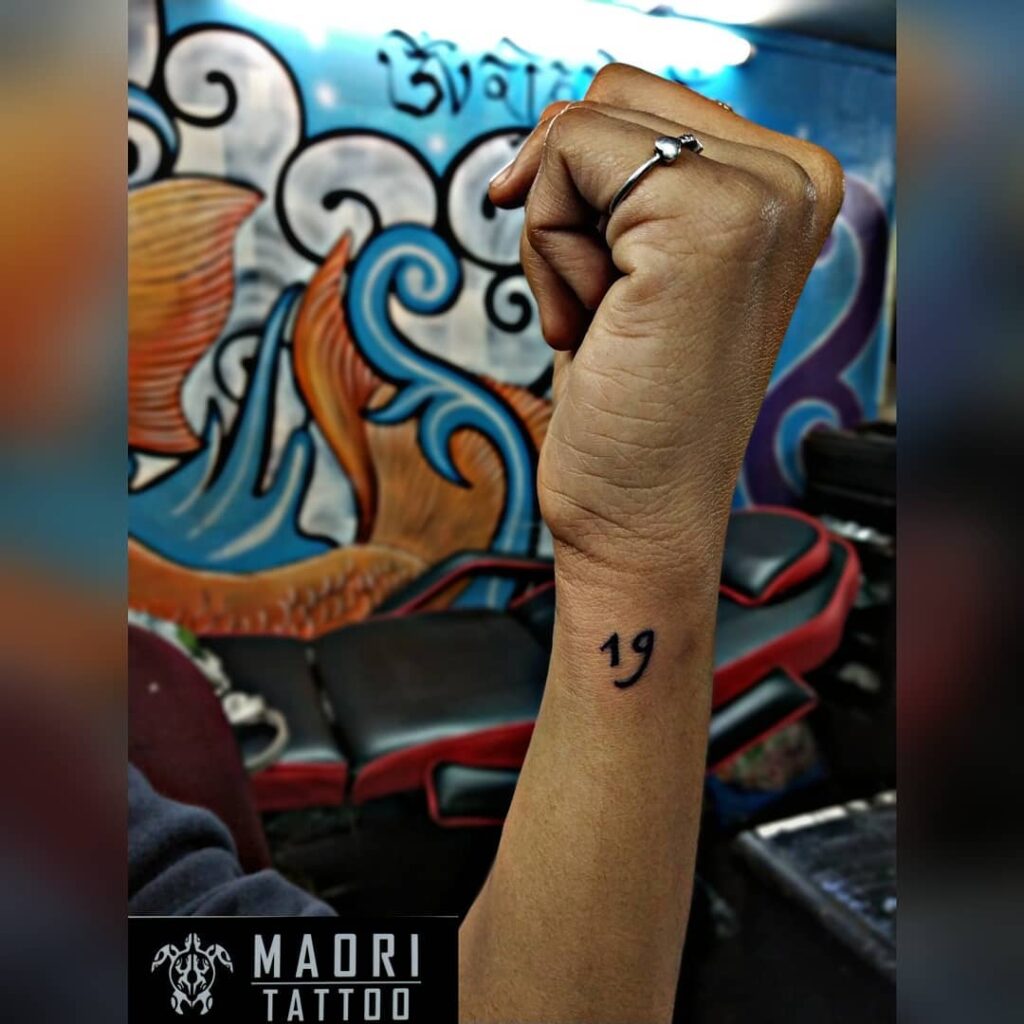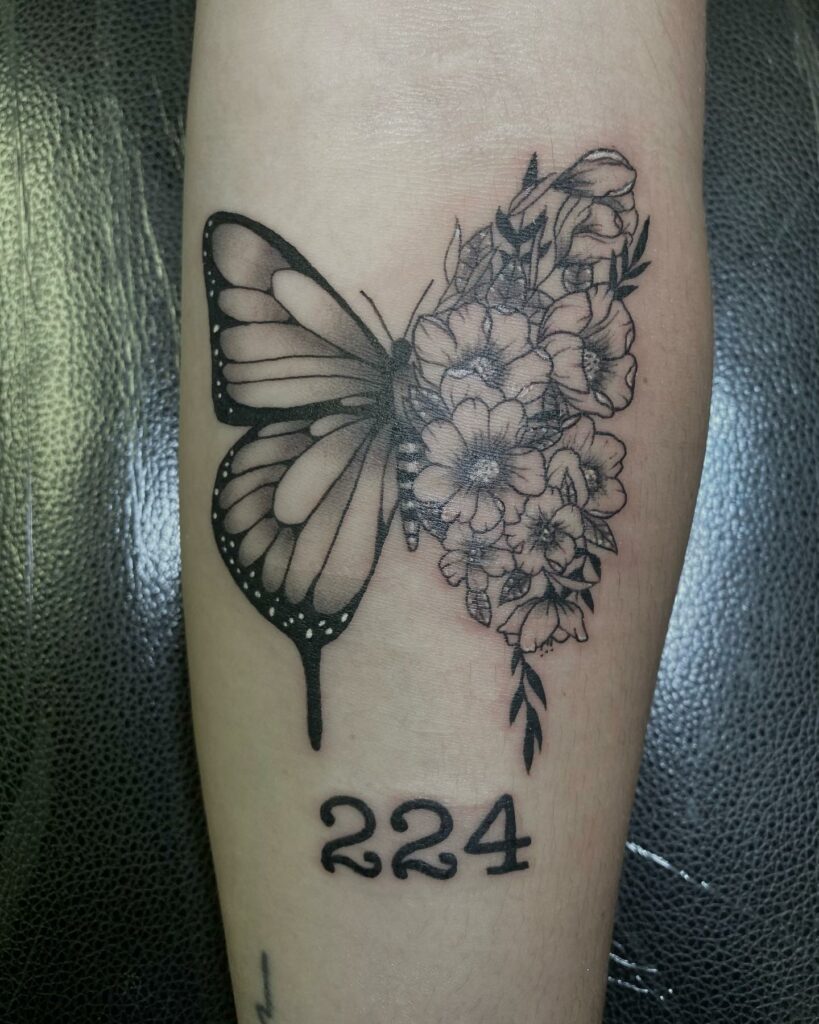
Want a tattoo font that truly stands out? You’ve come to the right place! Font styles possess a unique power, and the perfect choice is crucial. Decorative fonts, from elegant scripts to personal handwriting styles, uniquely express your personality and feelings. When selecting a tattoo font, consider both the design’s meaning and the font’s style. A striking number font can elevate your tattoo and spark interest. Finding the ideal font can be overwhelming with so many choices. But fear not! We’ve curated a list of exceptional and distinctive decorative number fonts to assist you in your search. Explore our selection, pick your favorite, and prepare to make a lasting impression!
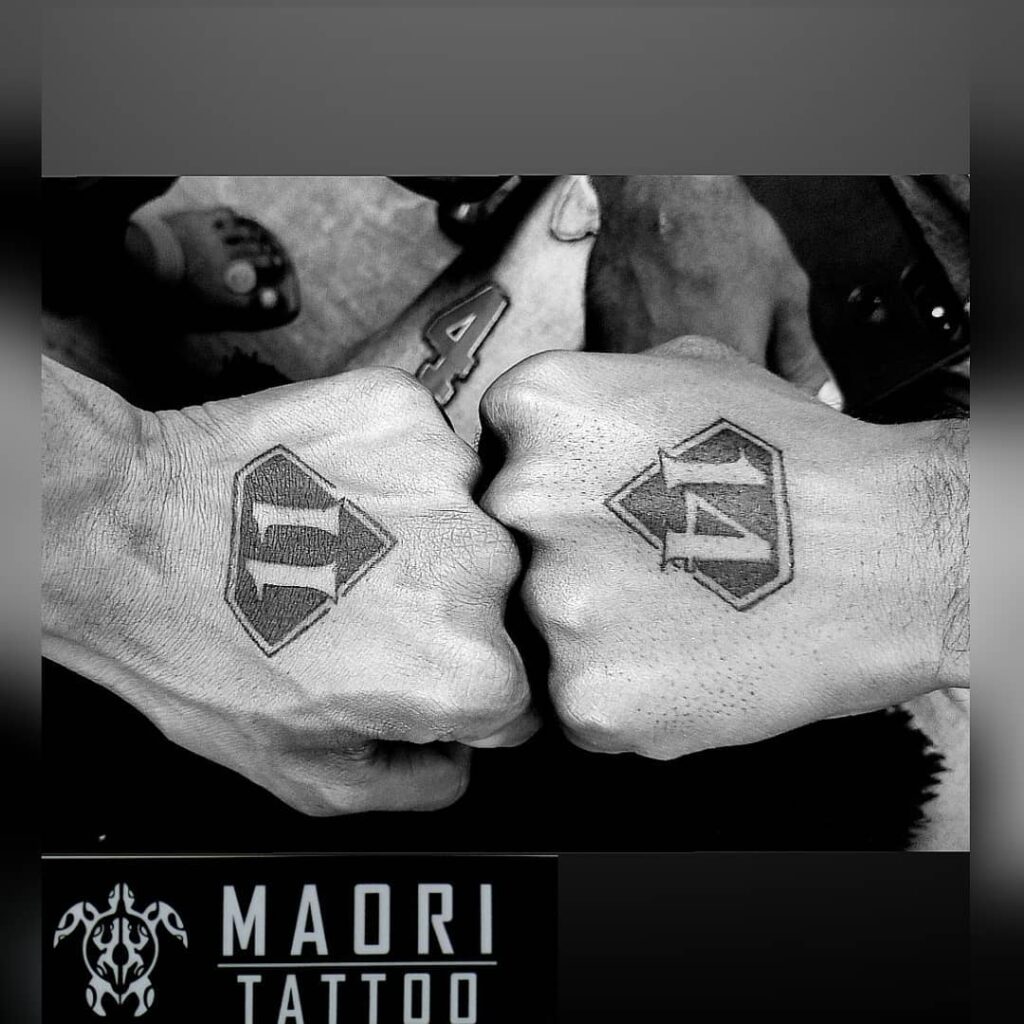
Date Tattoo
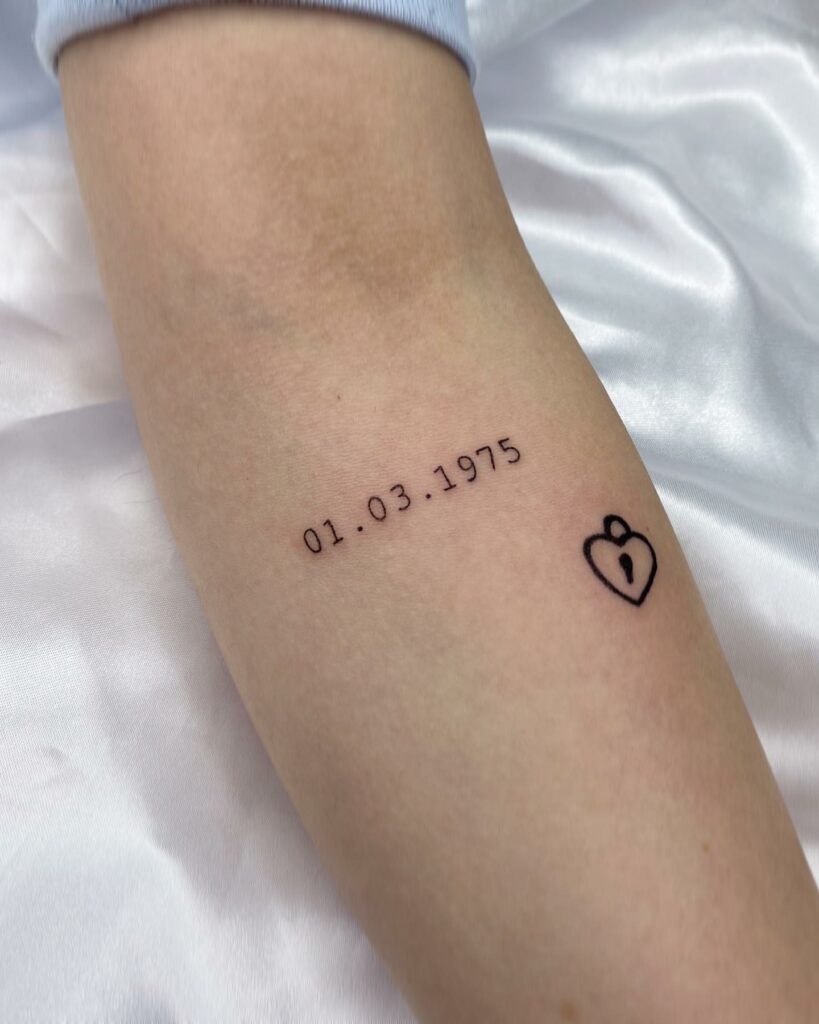
Significant dates resonate deeply within us. A tattoo is a beautiful way to honor these memories. Consider commemorating a partner’s birthday or a loved one’s anniversary with ink. Incorporating these special dates adds profound personal meaning to your tattoo.
For a stunning date tattoo, our artists frequently recommend typewriter fonts. Their clean, straightforward style brings a refined touch, ideal for this tattoo type. We usually use black ink, ensuring the date is clear and prominent. We also advise clients to incorporate custom design features for a truly unique and personal artwork.
In 2025, date tattoos remain a potent symbol for commemorating life’s significant moments and cherished individuals. With careful selection of font and design, they become striking and deeply personal body art. Our skilled tattoo artists are dedicated to assisting you in crafting a unique design that embodies your individual narrative.
Number 5 Tattoo
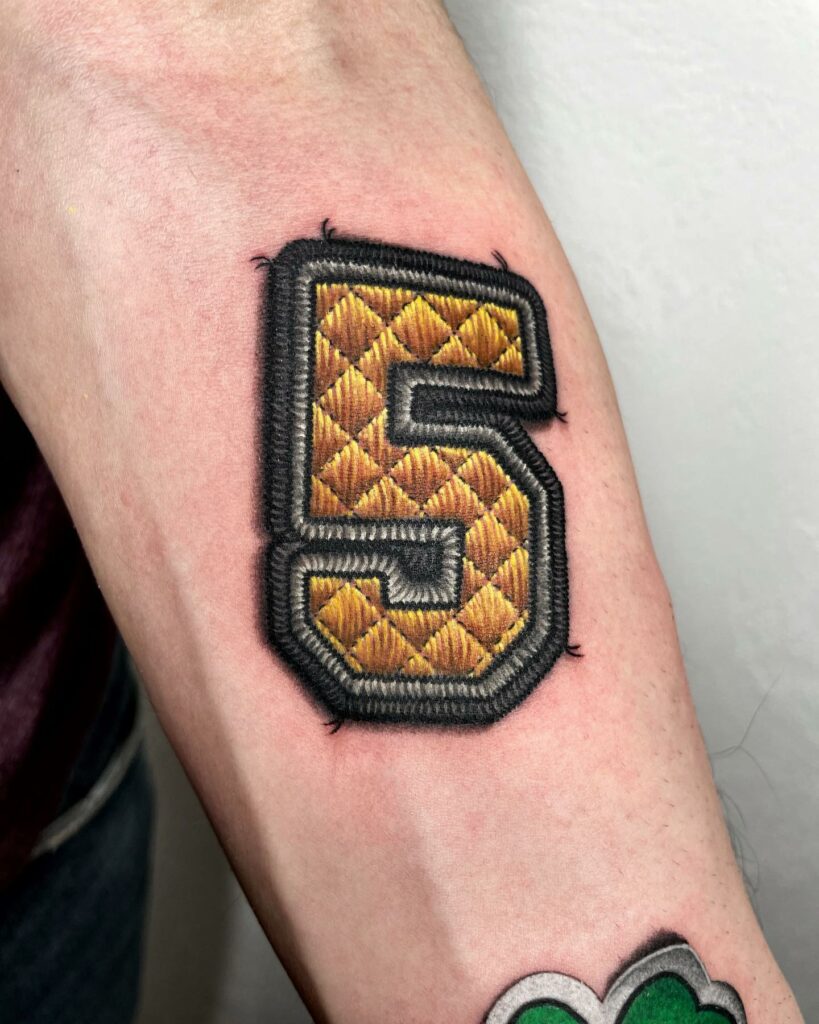
The iconic 5-point star, often called the nautical star, remains a favored design. For generations, sailors have relied on it for navigation, symbolizing the journey back to their loved ones and a sense of direction.
Tattoos are beautiful because of their personal meaning. The number 5 can be uniquely significant. It might represent a special date. It could also symbolize the number of cherished family or friends.
A stunning number 5 tattoo showcases an embroidered design, seemingly stitched directly onto the skin. The skilled tattooist masterfully blends yellow, brown, grey, black, and white inks for a hyper-realistic effect. Loose threads around the tattoo’s edge enhance the illusion, mimicking genuine needlework.
In 2025, the number 5 remains a popular tattoo choice due to its adaptability and rich symbolism. Its meanings are diverse and can be tailored to individual preferences. Remember to select a design that resonates with you on a personal level. Always consult with a skilled and licensed tattoo artist for a safe and positive tattooing experience.
Birth Year Tattoo
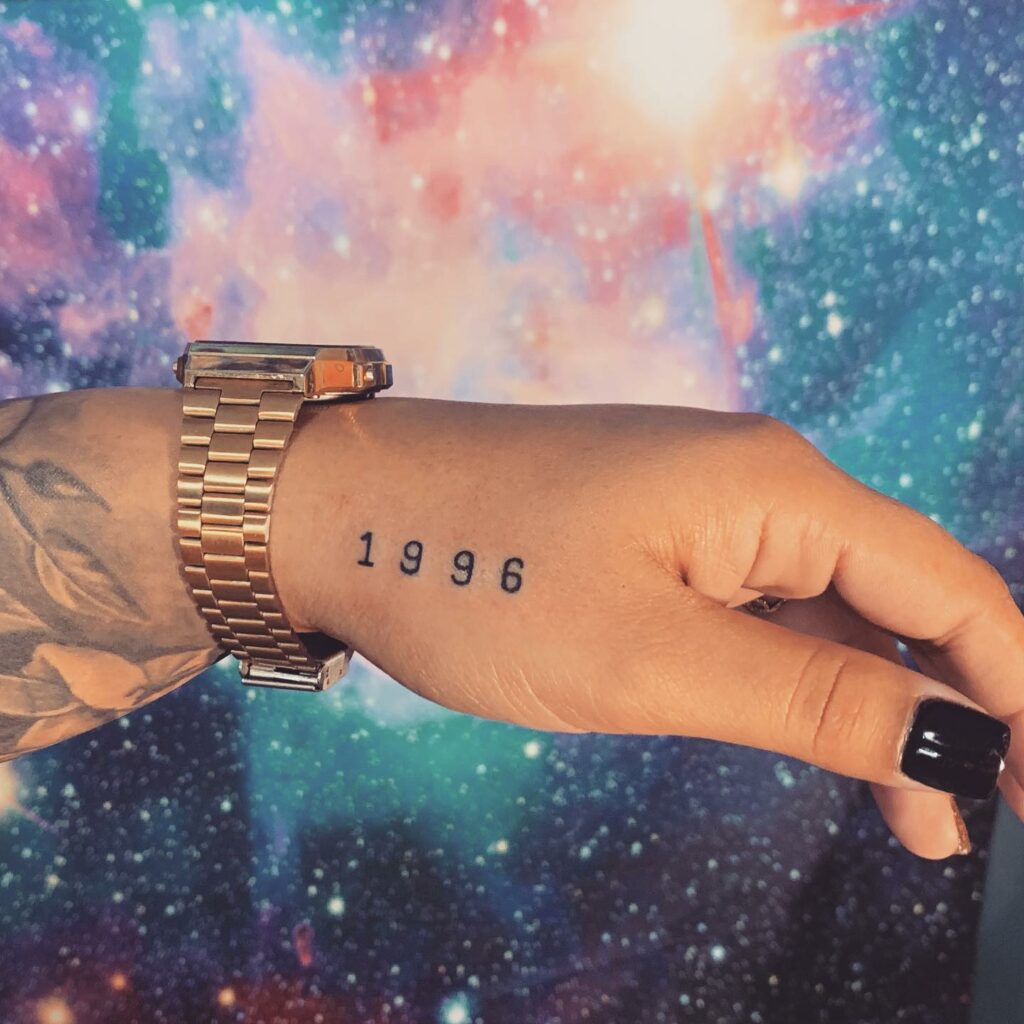
These tattoos aren’t just about your own birth year. They can also symbolize the birth year of a loved one or a significant life event.
Year tattoos remain popular due to their deeply personal narratives. Each year holds unique significance. Inking it creates a lasting reminder of a special, defining moment.
Parents, for instance, frequently get tattoos of their child’s birth year. It’s a heartfelt tribute and celebration of their precious child. Similarly, couples might choose a year tattoo to mark their wedding anniversary. This serves as a permanent symbol of their enduring love.
This tattoo showcases the year rendered in a traditional typewriter font. This font choice provides a sophisticated and enduring aesthetic, maintaining a personalized sentiment. Positioned on the hand, near the thumb, the tattoo is prominently displayed and readily noticeable.
Number 4 Tattoo
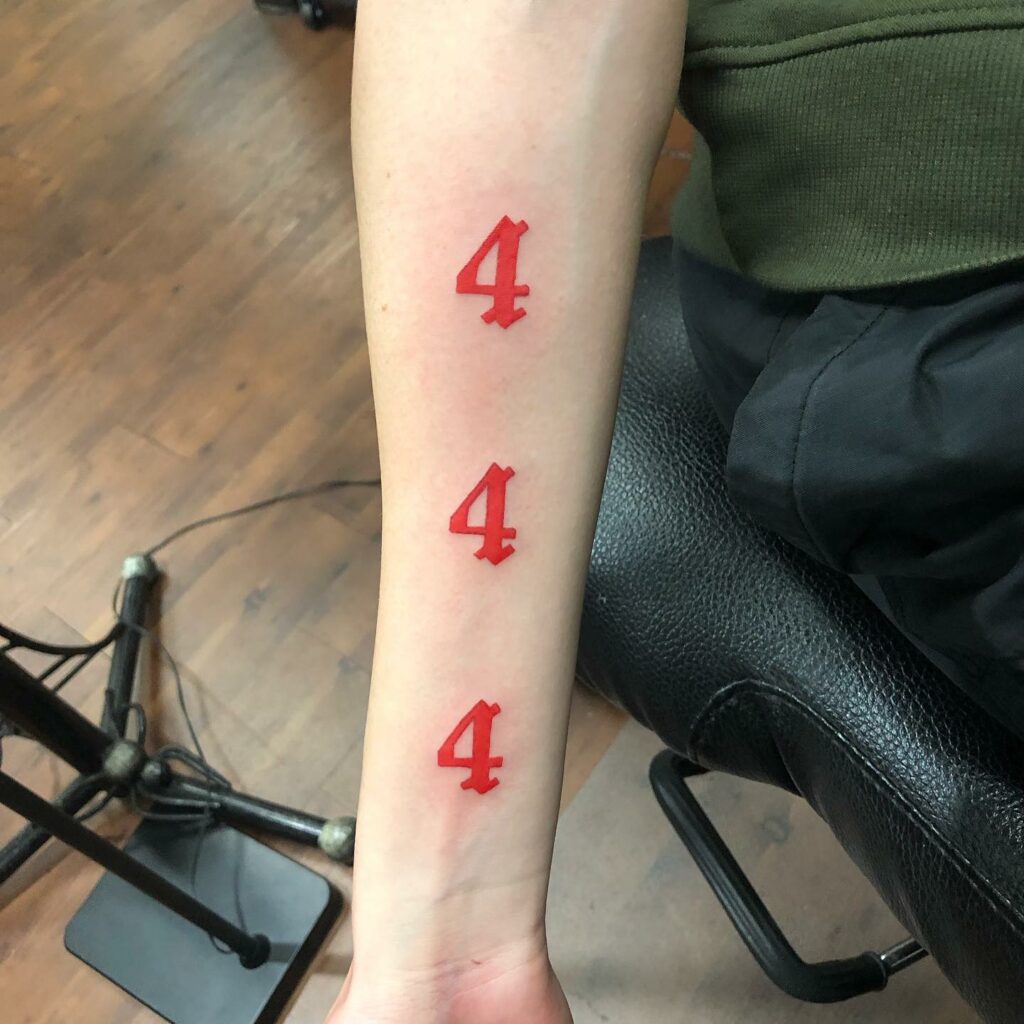
This digit carries profound meaning. It represents ambition and a zest for life. Consider it a potent nudge to advance, pursue excellence, and rekindle your inner fire.
Many celebrities proudly display the number 7 on their bodies. This reflects the ambition and resolve required for success in both their professional and personal journeys.
This forearm tattoo showcases the number 444 in a vibrant red ink. The bold design ensures it’s always noticeable. A distinctive font choice for the number four enhances the tattoo’s visual appeal and personal touch.
This design showcases the number 444 on the forearm. However, you can adapt this concept in numerous ways. Consider using a delicate font, such as typewriter or script, and placing it on your wrist or neck for a subtle yet meaningful tattoo.
Custom Font Tattoo
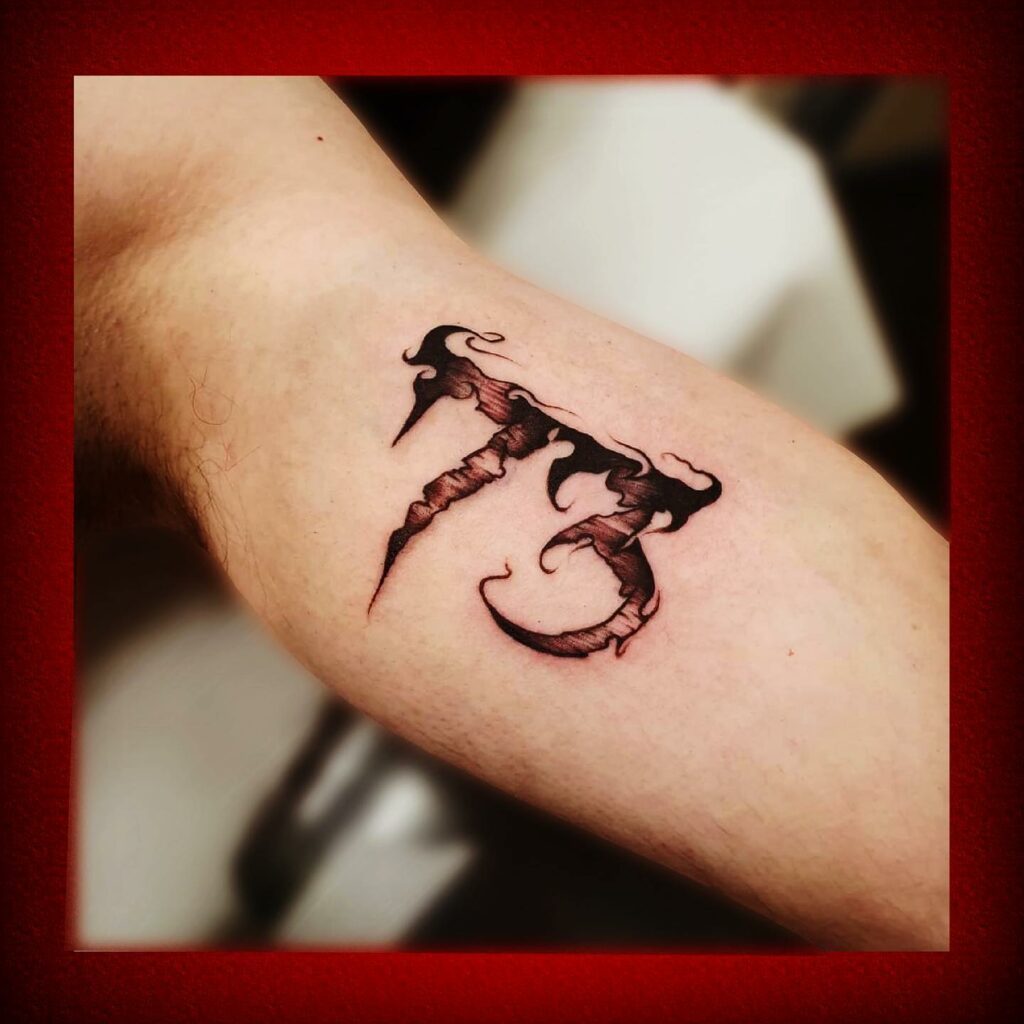
This distinctive tattoo showcases the number 73, rendered in an ethereal and enchanting font. The design employs a striking black and brown color palette, resulting in a captivating visual impact. The number’s outline is meticulously crafted with delicate linework using black ink. The interior features intricate shading achieved through dotwork and fine lines, creating a truly beautiful and detailed piece.
This tattoo, often seen on the bicep, can be placed anywhere you want to showcase it. Whether you’re drawn to the symbolism of Angel Number 73 or simply appreciate the aesthetic, this design makes a beautiful statement. Embrace positivity and strength with this eye-catching tattoo in 2025!
Free Hand Tattoo
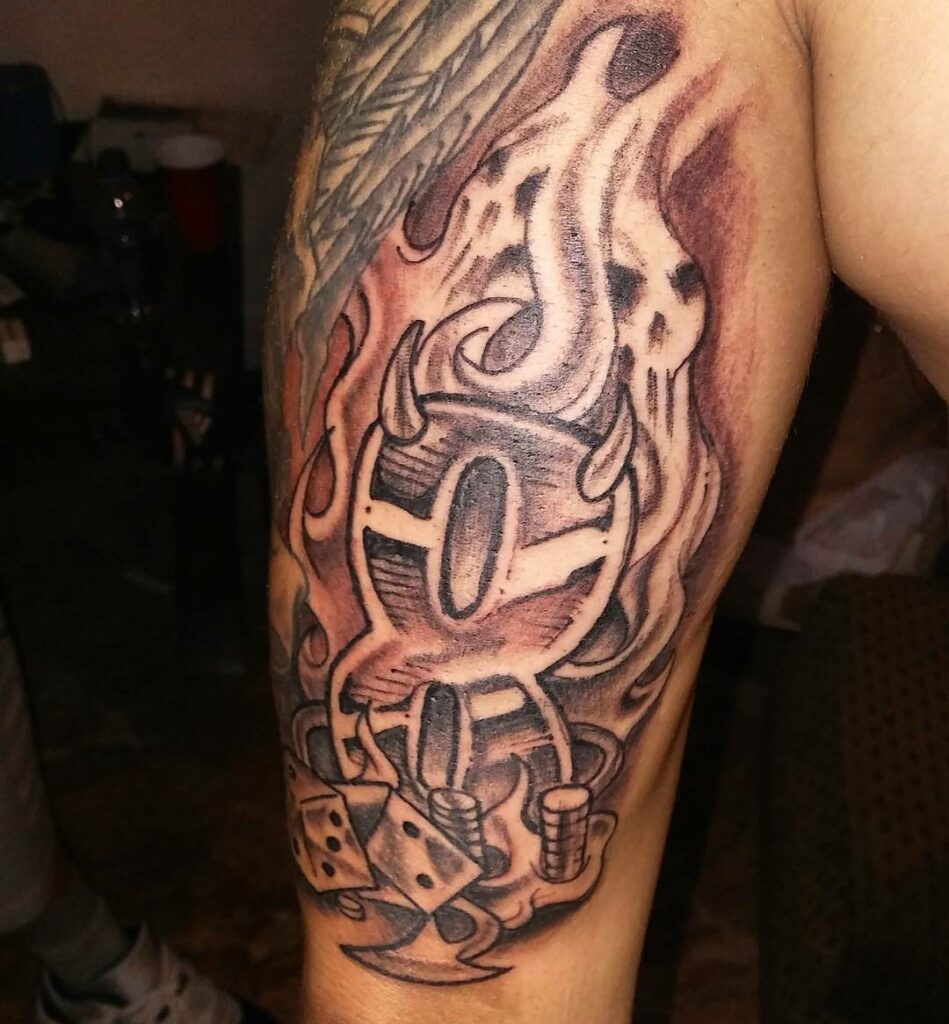
The number 8 holds a special significance, often seen as a symbol of perfection. Many individuals choose it for tattoos, representing their dedication to achieving excellence. Interestingly, when styled creatively, the number 8 mirrors the infinity symbol, a potent emblem of eternal love and boundless potential. This stunning tattoo showcases the number 8, enhanced with fire and ice elements, adding layers of meaning. The talented artist masterfully blends black and brown hues, creating a captivating and impactful design. Whether you’re drawn to lucky numbers or simply admire its aesthetic appeal, this tattoo is guaranteed to leave a memorable mark.
Roman Numeral Font